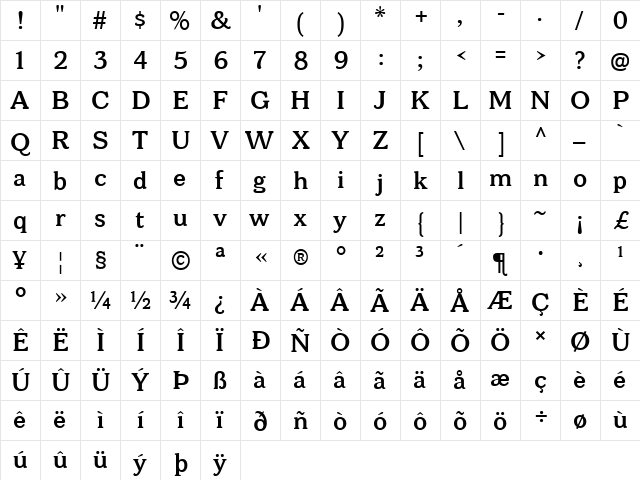
Bonobo SemiBold Regular
Design Context for Bonobo SemiBold Typeface
Bonobo SemiBold offers clean, dependable letterforms without strong stylistic allegiance, making it a practical choice for designers who need flexibility. Its bold stroke weight gives it real presence on the page.